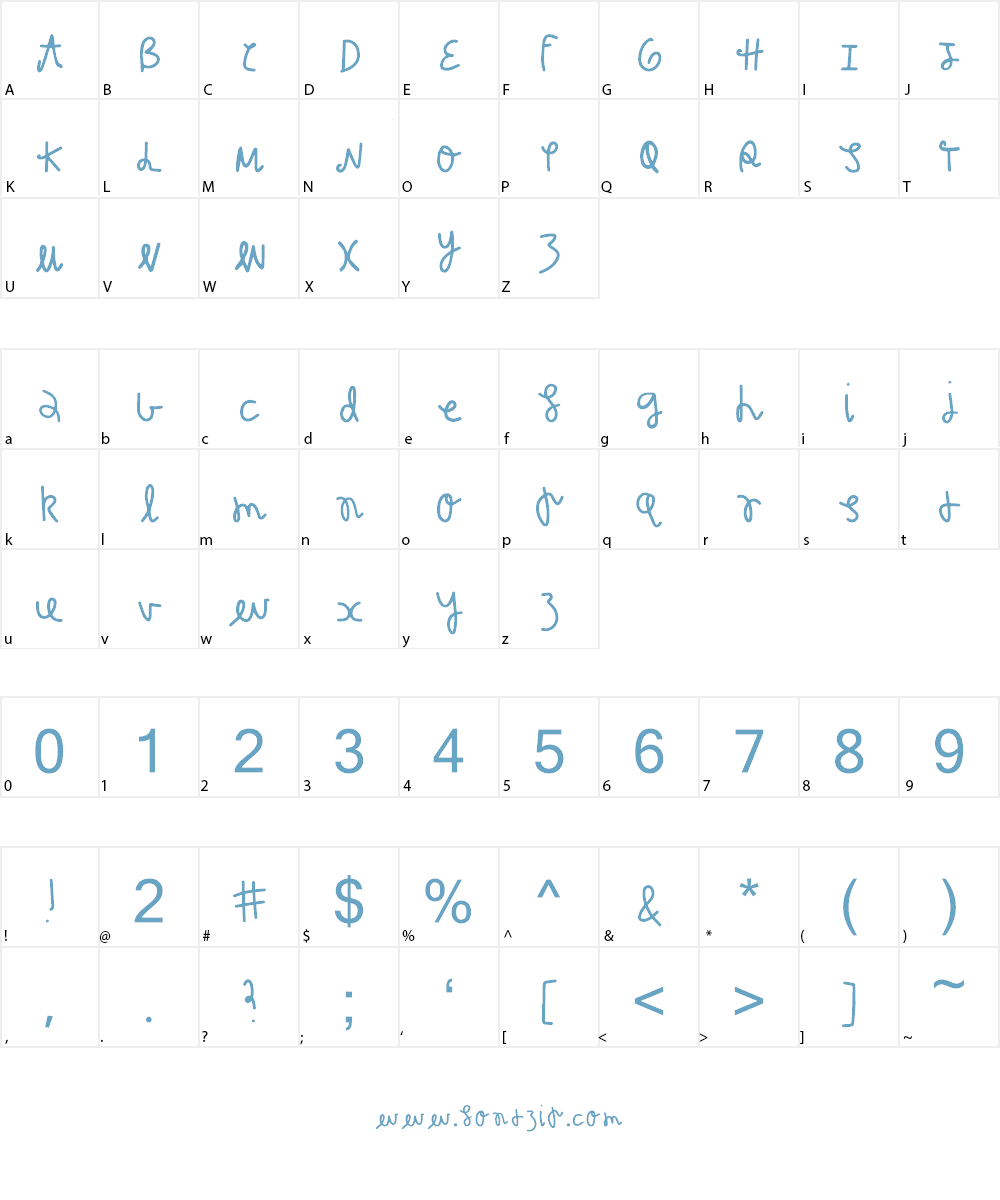
Silly Gal is a messy and silly font perfect for any quirky project. Fall in love with its irregular nature. To use this font commercially, see the link below :)